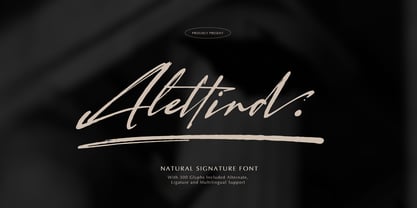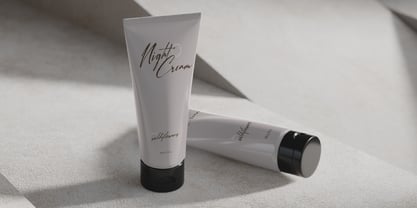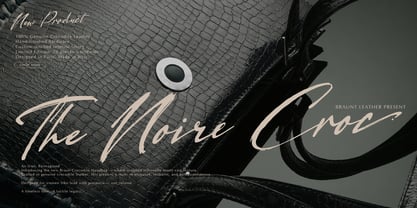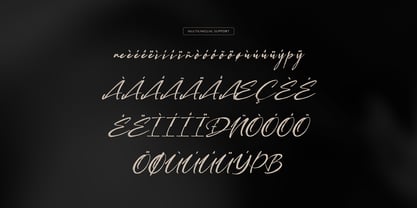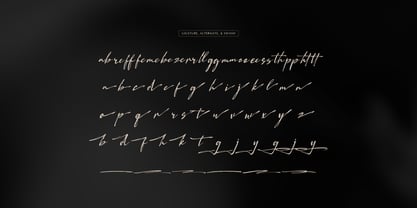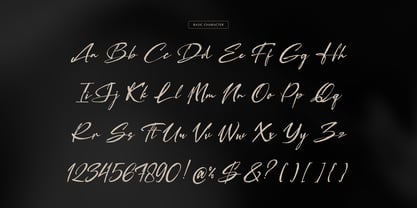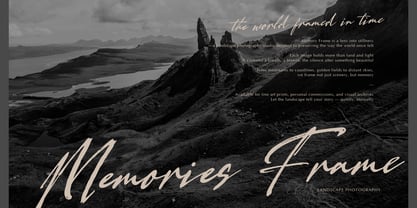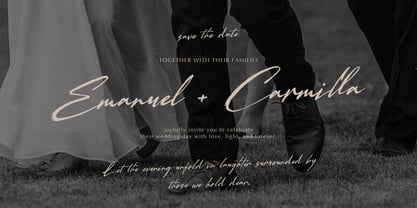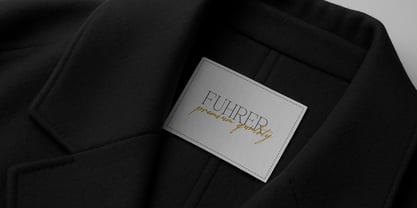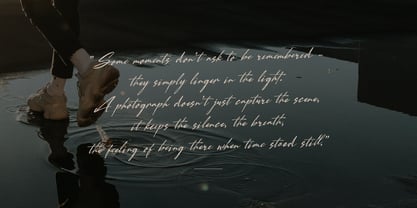
Alletind
Alletind | Natural Signature Font, from Gracetypestudio, suitable for any projects such as: logos, branding projects, homeware designs, product packaging, mugs, quotes, posters, shopping bags, t-shirts, book covers, name card, invitation cards, greeting cards, label, photography, watermark, special events, and all your other lovely projects that need a Cutout Handwritten taste.
• Regular and Italic
• Alternate and Ligature